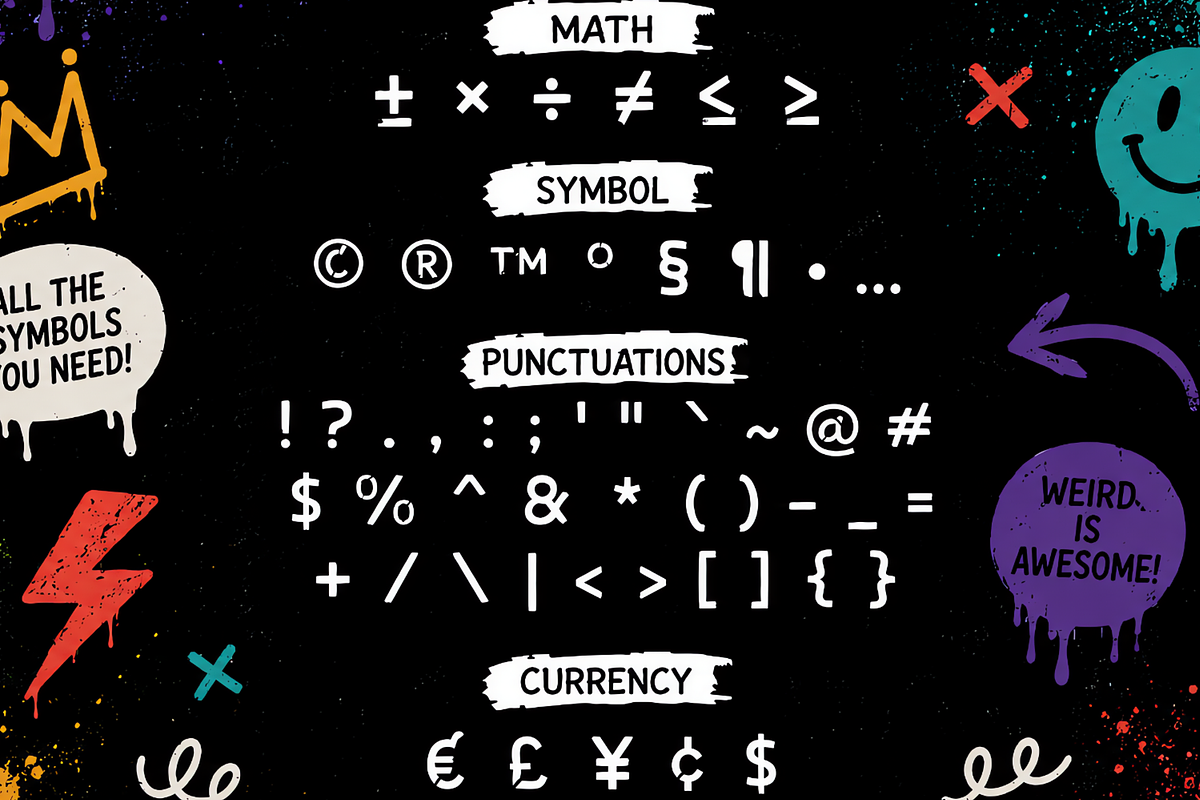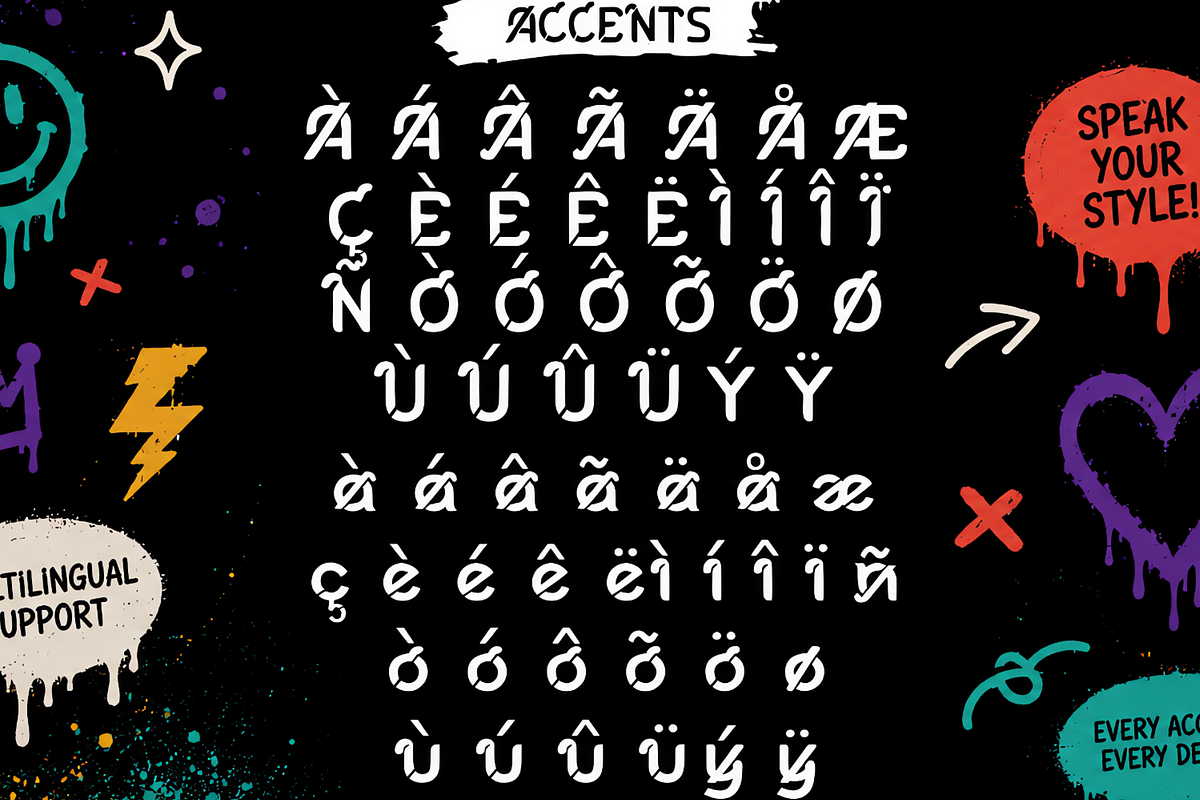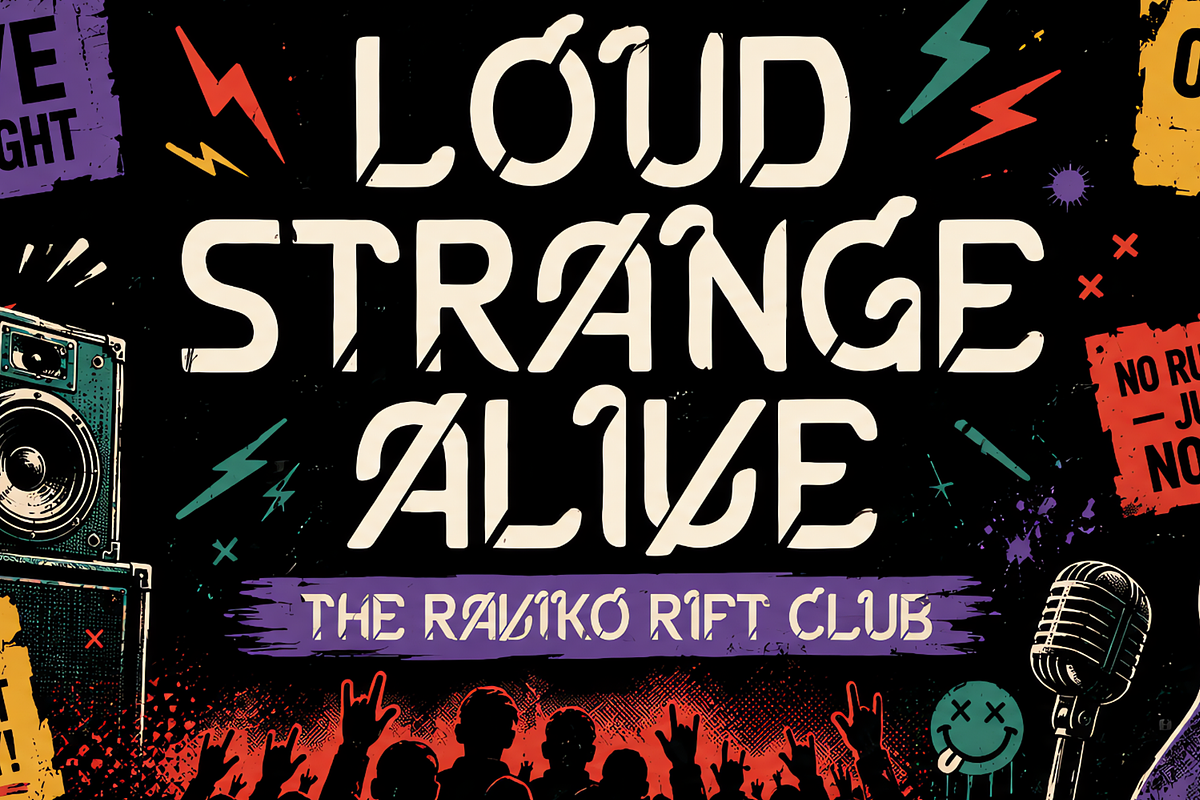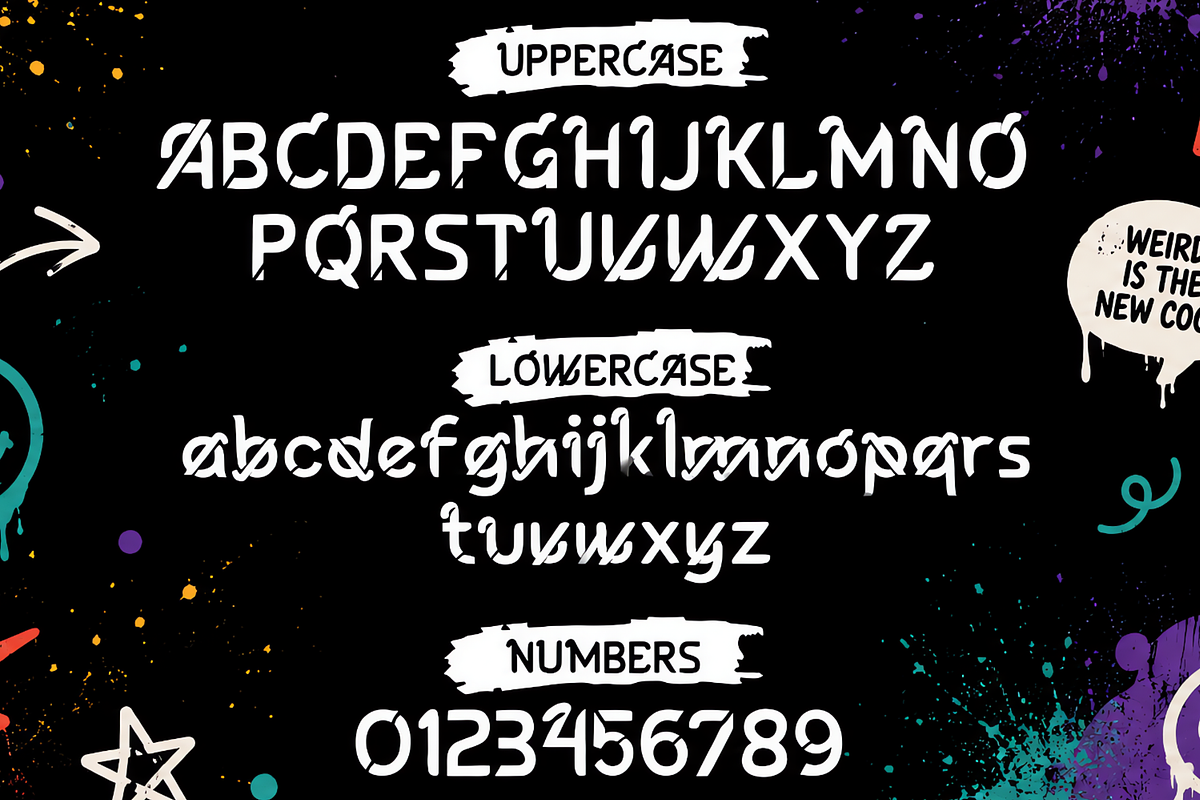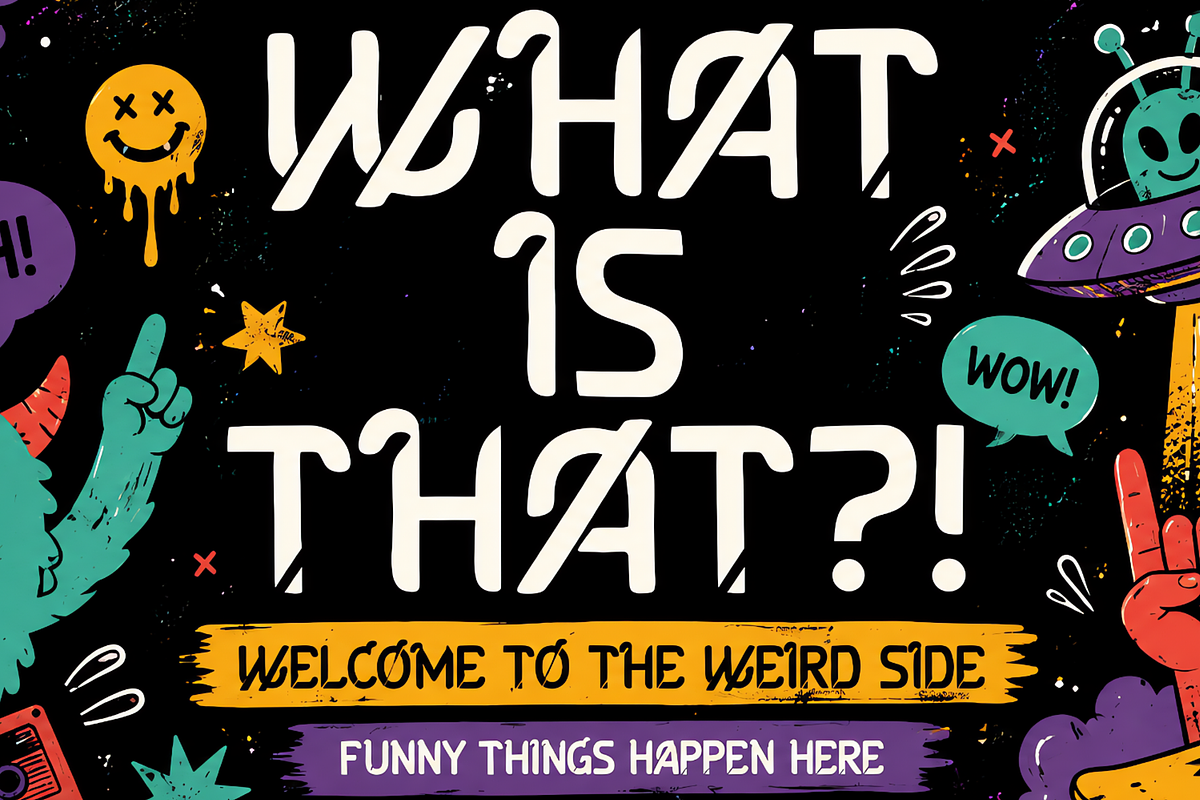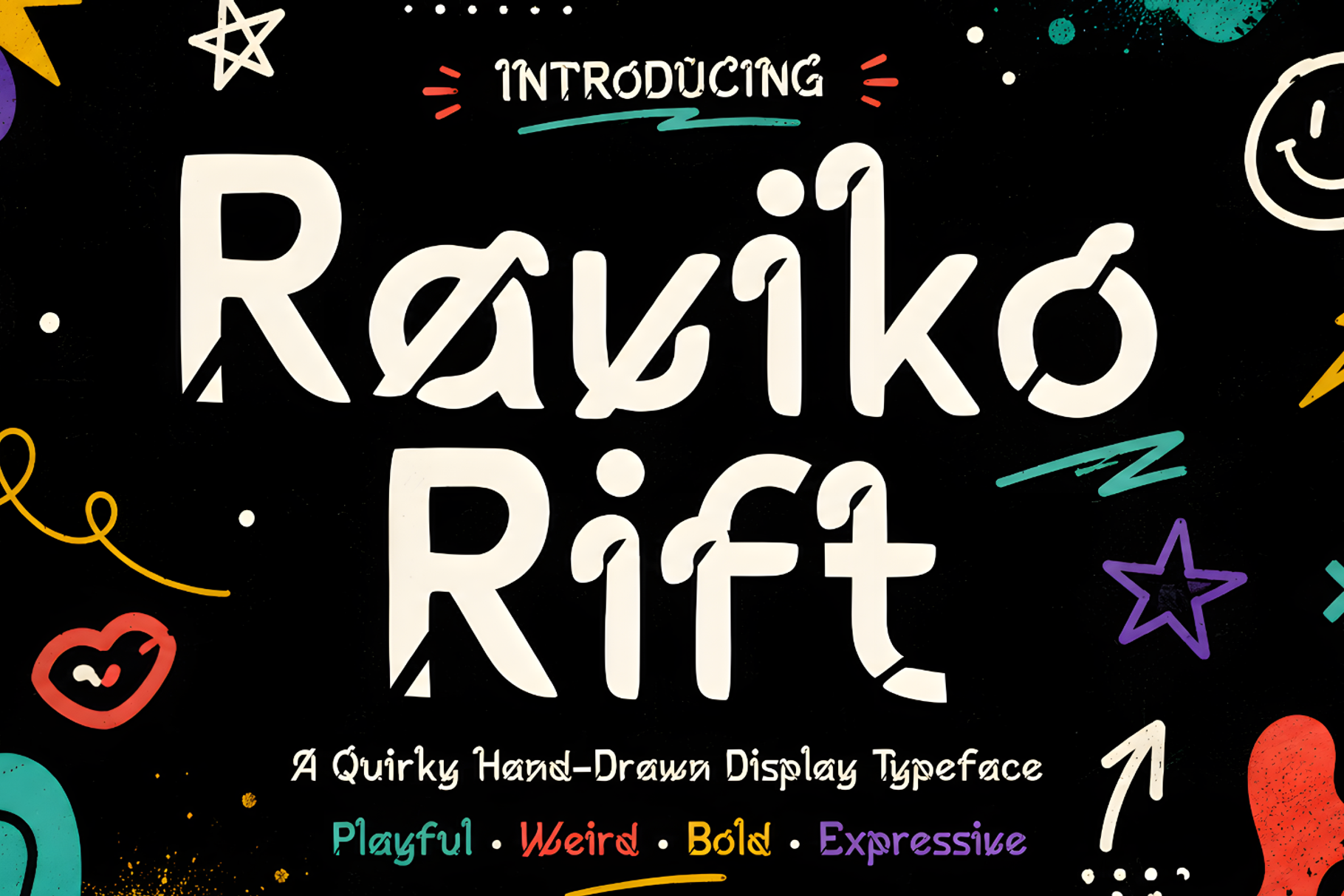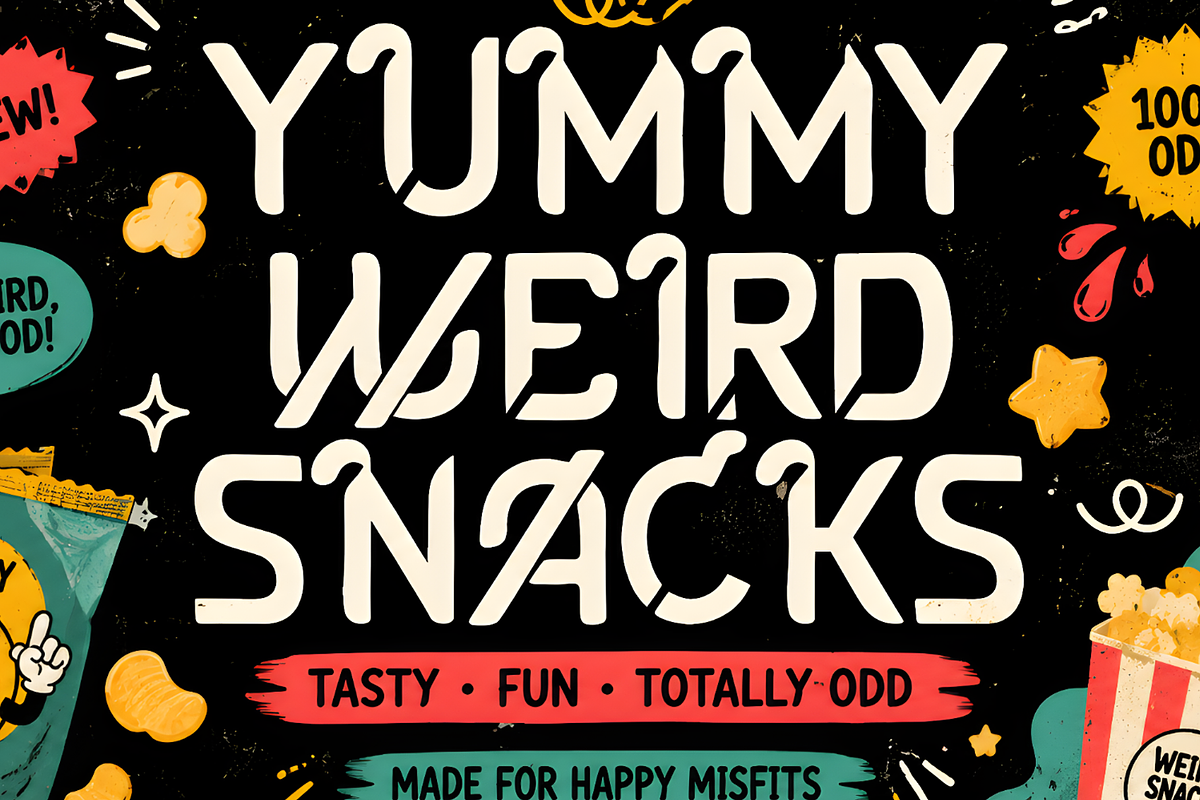
Raviko Rift Quirky Hand Drawn Font
Raviko Rift is a quirky hand-drawn display typeface with a bold, playful, and slightly rebellious personality. Its distinctive shapes, irregular details, and expressive cuts give every word a fun and unexpected character.
Perfect for designs that need to stand out, Raviko Rift works beautifully for posters, branding, packaging, logos, album artwork, apparel, stickers, children's designs, social media graphics, and creative headlines.
The family includes Regular and Slant styles, giving you the flexibility to create both energetic upright compositions and more dynamic, expressive layouts. With its playful personality and distinctive handcrafted appearance, Raviko Rift is made for designers who want their typography to feel fun, weird, bold, and full of attitude.